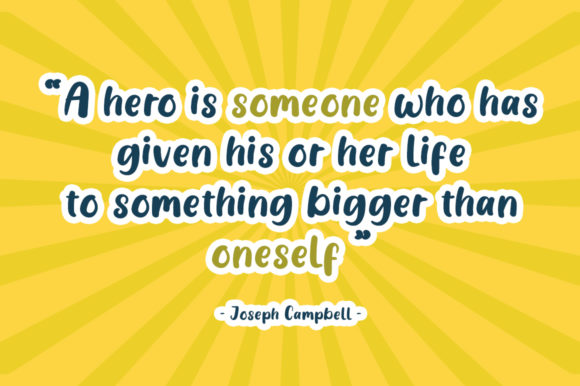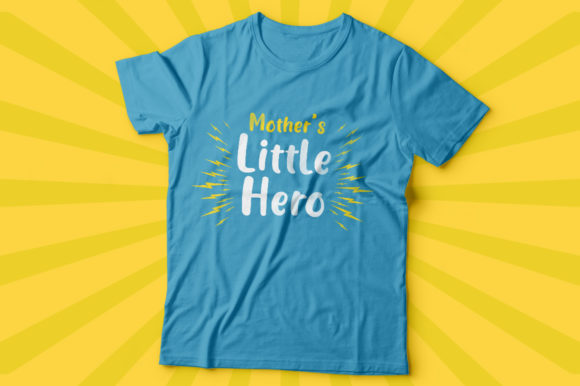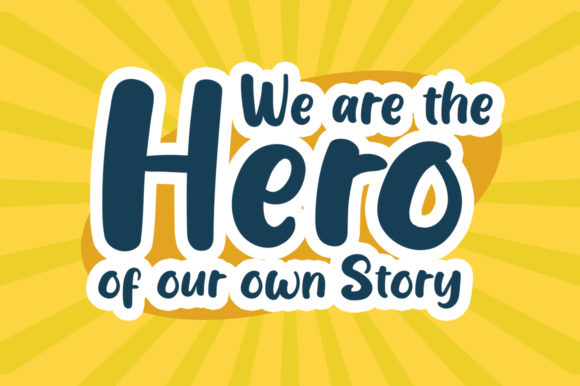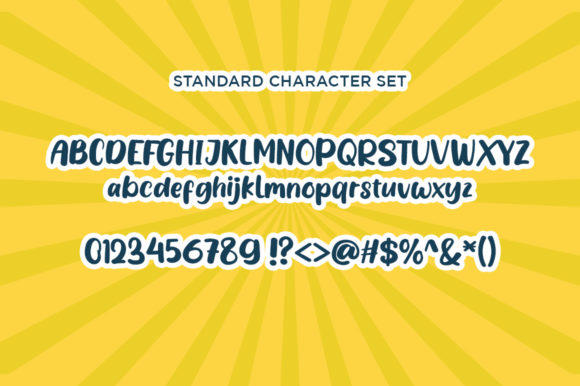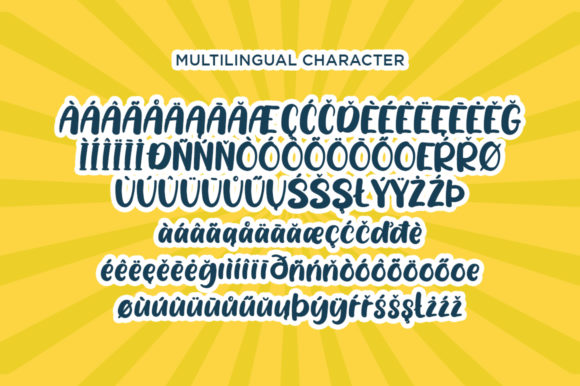
HomeScript FontsZerohero Font Script Fonts Zerohero Font FacebookXPinterestWhatsApp 1 of 6 Zerohero Font Poster 2... Zerohero Font Poster 3... Zerohero Font Poster 4... Zerohero Font Poster 5... Zerohero Font Poster 6... About Zerohero Font Zerohero is a fun and trendy handwritten font. Joyful and sweet, this font will brighten up each of your designs! DOWNLOAD NOW People also explored Mazes Font Zebardon Font Battara Script Font Milky Cows Font Cogiaye Font Jockwatt Font Sinderland Font Roslitta Aganta Font Cherish Today Font 303 0 TagsZerohero Font Previous articleShady Cave FontNext articleFrigga Font LEAVE A REPLY Cancel reply Comment: Please enter your comment! Name:* Please enter your name here Email:* You have entered an incorrect email address! Please enter your email address here Website: Save my name, email, and website in this browser for the next time I comment. Personal Use Free Angelitta Personal Use Free Read more about this font No Virus Personal Use Free Read more about this font Whoa Personal Use Free Read more about this font Valentines Day Personal Use Free Read more about this font BLOG How to Install and Use Fonts on Windows, macOS, and Web Projects How to Install and Use Fonts on Windows, macOS, and Web Projects Fonts are a crucial part of design and branding. Whether you’re designing a... Modern Sans-Serif Fonts That Brands Love in 2025 Transform Your Website: Elevate Your Typography with 7 Best Web Font Generators Best Fonts for YouTube Videos: Make Your Thumbnails Stand Out